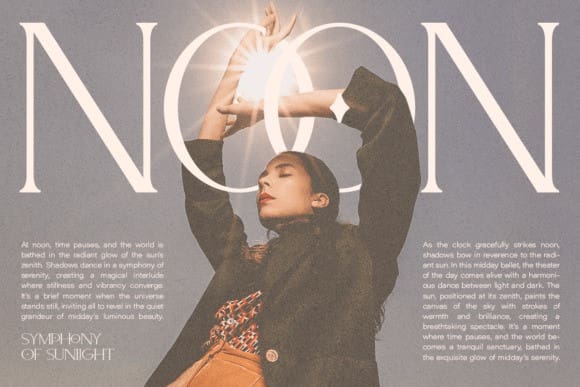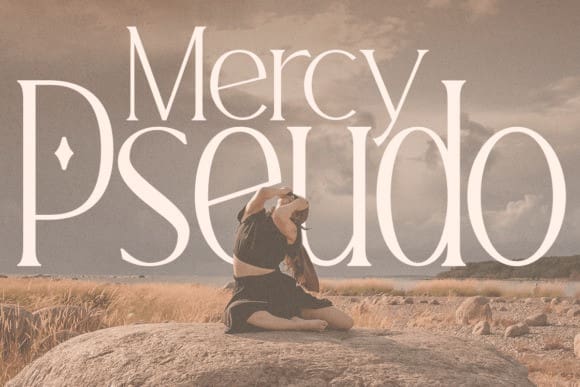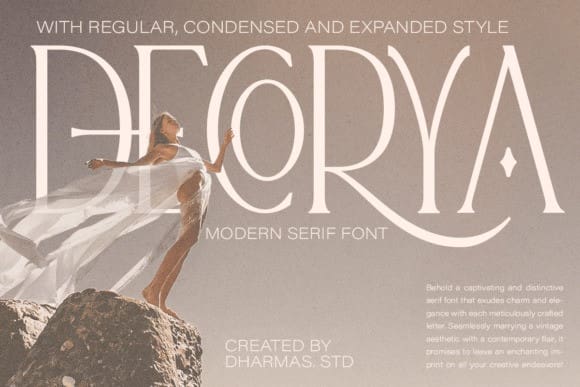
Dekorya Font
Dekorya Font is a beautiful and inspiring mix of classic calligraphy and modern serif with 46 unique ligatures and special alternates. Comes in 3 versions: Condensed, Regular, and Expanded
Dekorya Font is made mainly for headlines, titles, and other short texts and is well-suited for advertising, vintage mood boards, branding, logotypes, packaging, titles, editorial design, modern logos, websites, social media quotes, wedding branding, modern and vintage design